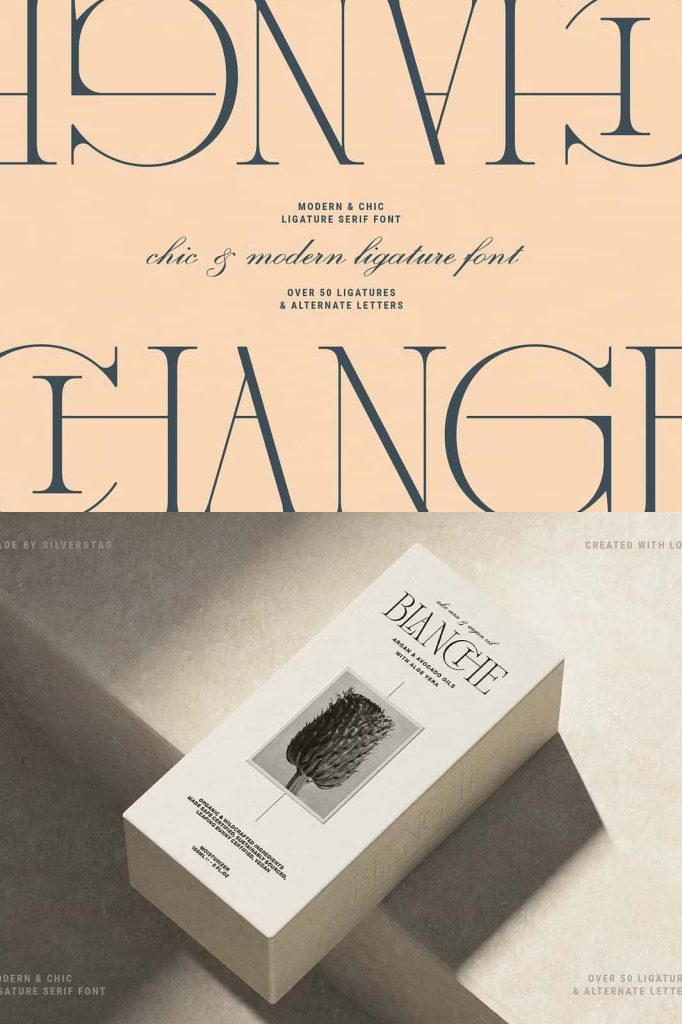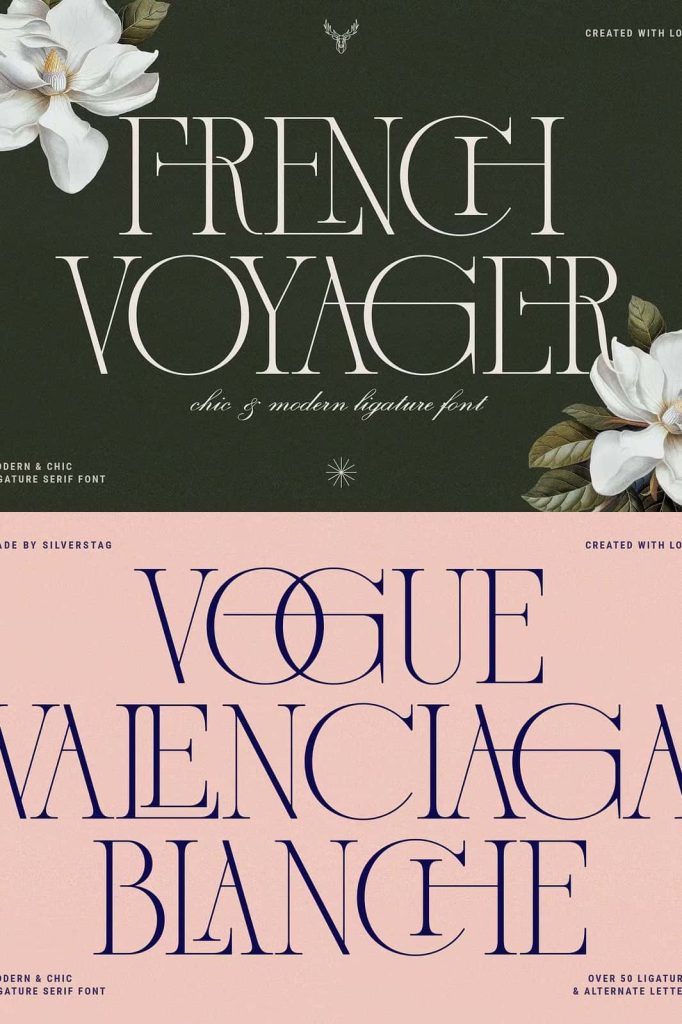
French Voyager Serif Font
French Voyager is a nostalgic serif font revival that blends vintage charm, chic sophistication, modern refinement, and bold Art Deco influence into one elegant typeface. It captures the romance of classic European design while delivering the precision and flexibility today’s designers demand. With its graceful curves, confident serifs, and refined structure, French Voyager transforms simple typography into timeless visual storytelling.
This font does more than decorate text. It shapes mood, enhances brand identity, and elevates every layout with effortless elegance. Whether you design for print or digital platforms, French Voyager helps you create distinctive compositions that feel luxurious and expressive.
Vintage Revival with Modern Precision
French Voyager draws inspiration from classic serif traditions and Art Deco aesthetics. It revives the beauty of historical typography while refining each detail for modern use. The result feels both nostalgic and fresh. It honors the past without sacrificing contemporary clarity.
The letterforms feature balanced contrast, sculpted curves, and deliberate spacing. These elements create harmony across headlines, logos, and editorial layouts. Designers can confidently use this serif font in high-end branding projects or stylish digital content.
Elegant Art Deco Influence
The subtle Art Deco character adds structure and glamour to every word. French Voyager reflects the bold geometry and decorative sophistication associated with early twentieth-century design. At the same time, it maintains readability and versatility.
Use this typeface to create dramatic headlines, refined invitations, or striking fashion campaigns. Its elegance never feels outdated. Instead, it reinforces a sense of taste, culture, and creative confidence.
Perfect for Logos and Branding
Strong branding starts with strong typography. French Voyager serif font gives logos a distinctive and memorable presence. Its stylish serifs and refined proportions help brands communicate luxury, creativity, and authenticity.
Designers can use it to craft boutique identities, fashion labels, beauty brands, lifestyle products, and high-end packaging. The font adapts easily to both minimalist layouts and decorative compositions. It supports brand storytelling through elegant typographic voice.
Create Timeless Brand Statements
French Voyager empowers you to design logos that feel iconic and sophisticated. Its curves and ligatures allow you to craft custom-looking wordmarks without complex adjustments. By combining alternates and ligatures, you can refine every detail and achieve a signature look.
This flexibility ensures your branding stands apart while maintaining cohesive visual harmony.
Over 60 Ligatures and Chic Alternates
One of the most powerful features of French Voyager lies in its extensive set of over 60 ligatures and carefully designed alternate letters. These stylistic options allow you to shape text with intention and personality.
Ligatures create seamless letter connections that enhance flow and elegance. Alternates introduce subtle variation and decorative flair. Together, they offer endless creative combinations. You can experiment freely and customize typography to suit each project’s tone.
Design with Creative Freedom
Instead of settling for default letterforms, you can refine and adjust your typography to match your exact vision. Combine ligatures to achieve smooth transitions in quotes and headlines. Use alternates to emphasize sophistication or add dramatic flair.
This level of control allows designers to move beyond basic layouts and craft typography that feels intentional and unique.
Ideal for Posters, Quotes, and Editorial Layouts
French Voyager excels in large-format designs such as posters and promotional graphics. Its elegant serifs and bold structure command attention while maintaining refined aesthetics. It works beautifully for inspirational quotes, art prints, event announcements, and marketing materials.
In editorial layouts, the font enhances magazine titles, newsletter headers, and website headlines. Pair it with a clean sans-serif body font to create balanced contrast and improve readability. The result feels modern yet deeply rooted in classic design tradition.
Elevate Website and Digital Design
French Voyager also performs seamlessly in digital environments. It strengthens website hero sections, landing page titles, and social media graphics with sophisticated charm. Its clear letterforms maintain readability across screens while preserving decorative elegance.
Designers can confidently integrate it into web branding, email newsletters, and digital campaigns without losing typographic integrity.
Why Choose French Voyager Serif Font?
- Vintage-inspired serif revival with modern refinement
- Chic and elegant Art Deco influence
- Over 60 ligatures for seamless letter combinations
- Stylish alternate characters for creative flexibility
- Perfect for logos, posters, branding, and website headlines
French Voyager serif font delivers nostalgia, sophistication, and contemporary clarity in one beautifully crafted typeface. It empowers designers to create expressive, elegant, and timeless typography across multiple platforms. Add French Voyager to your collection and design with confidence, creativity, and unmistakable style.